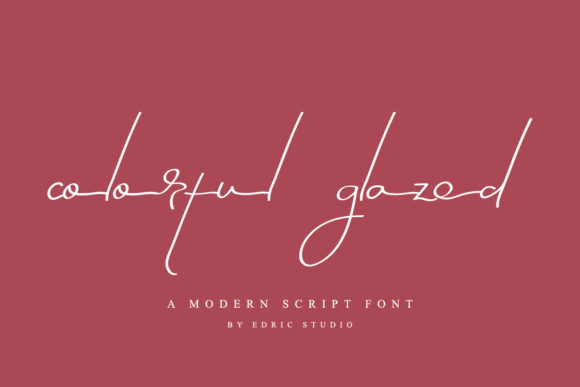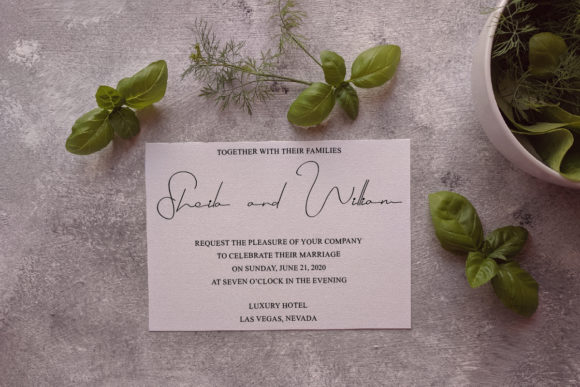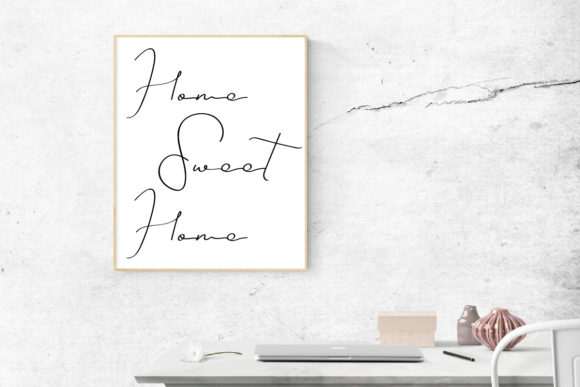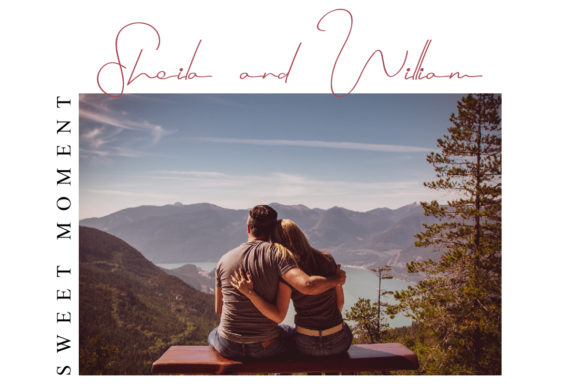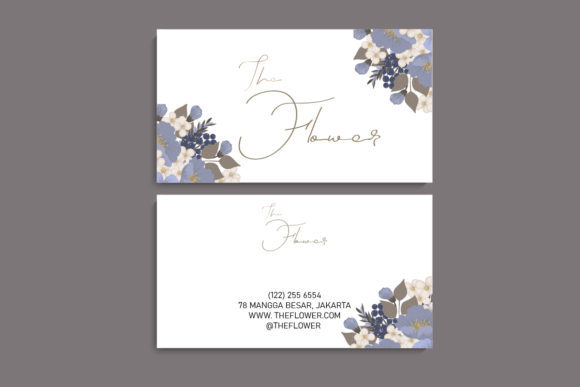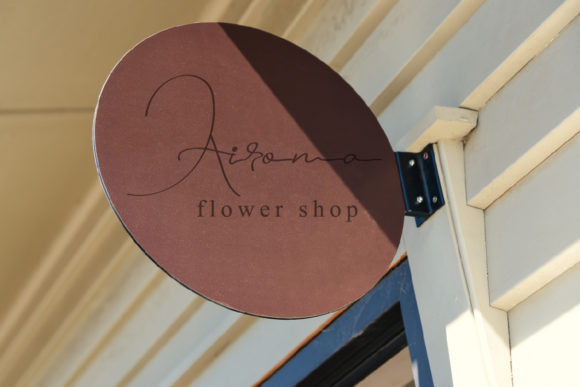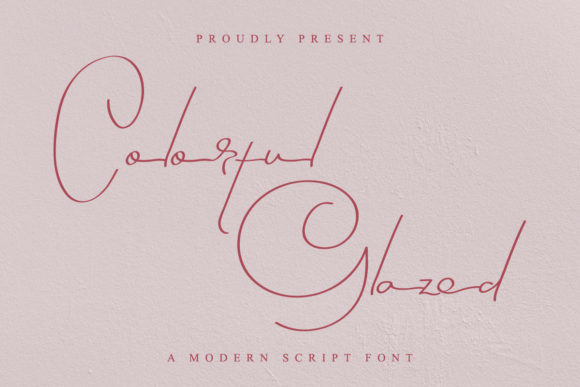
Introducing Colorful Glazed Font: Elevate Your Designs with a Touch of Elegance
Are you on the hunt for a font that adds a dash of sophistication and whimsy to your designs? Look no further than the Colorful Glazed Font, an exclusive handwritten typeface that is sure to take your projects to the next level. With its fancy style and stunning character set, this font is perfectly balanced to make your designs pop.
The Perfect Blend of Style and Versatility
Colorful Glazed Font boasts a unique and elegant design that is perfect for a wide range of projects. Whether you’re a designer, crafter, or DIY enthusiast, this font is sure to inspire your creativity. The possibilities are endless, from creating beautiful wedding invitations and party decorations to designing stunning logos, brochures, and more.
What Sets Colorful Glazed Font Apart
- Exclusive Handwritten Typeface: Colorful Glazed Font is a one-of-a-kind handwritten typeface that adds a personal touch to your designs.
- Fancy Style: The font’s fancy style is perfect for creating elegant and sophisticated designs that are sure to impress.
- Stunning Character Set: With a wide range of characters, you can create beautiful and unique designs that reflect your personal style.
- Perfectly Balanced: The font is carefully crafted to ensure that each character is perfectly balanced, making it easy to read and visually appealing.
Whether you’re a professional designer or a crafty DIY enthusiast, Colorful Glazed Font is the perfect addition to your design toolkit. Here are just a few ideas to get you started:
- Wedding Invitations: Create beautiful and elegant wedding invitations that set the tone for a special day.
- Party Decorations: Design stunning party decorations, including banners, garlands, and more.
- Logos and Branding: Use Colorful Glazed Font to create unique and memorable logos and branding materials.
- Social Media Graphics: Add a touch of elegance to your social media graphics, including Facebook posts, Instagram stories, and more.
Why Choose Colorful Glazed Font?
With so many fonts to choose from, why should you choose Colorful Glazed Font? Here are just a few reasons:
- Unique and Exclusive: Colorful Glazed Font is a one-of-a-kind font that will set your designs apart from the rest.
- High-Quality Design: The font is carefully crafted to ensure that it is of the highest quality and visually appealing.